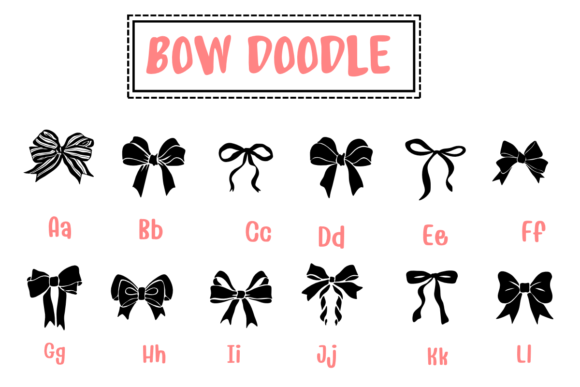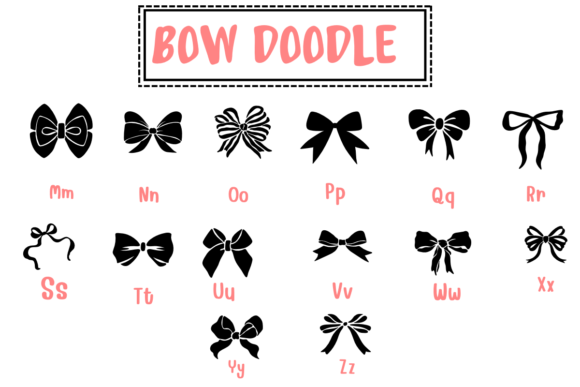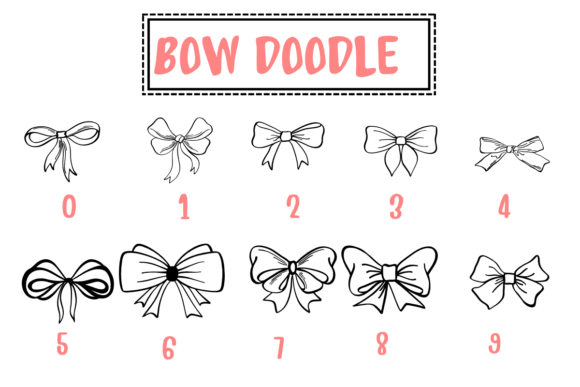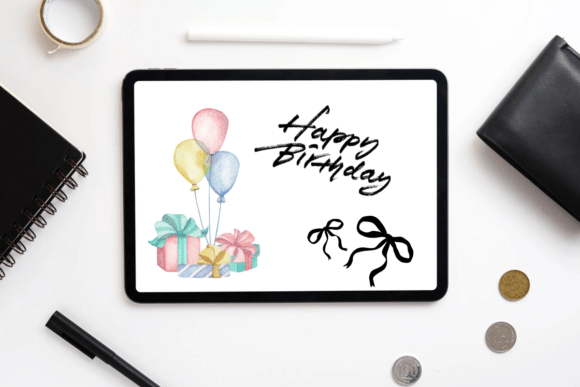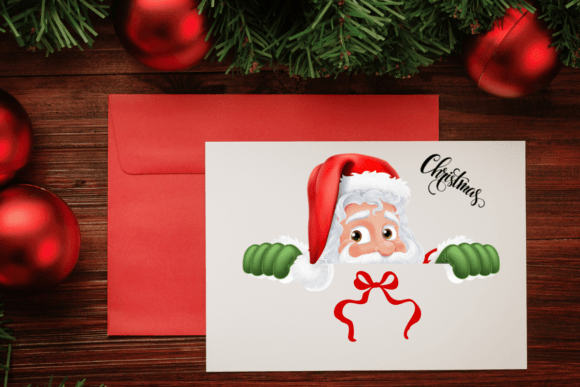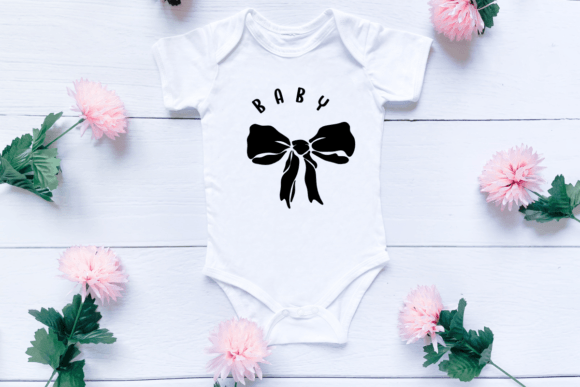
The Sweet Charm of Bow Doodle Font: A Designer’s Delight
I still remember the time I was working on a project for a client’s baby shower invitation. I wanted to add a touch of whimsy and charm to the design, but I just couldn’t find the right font. That was until I stumbled upon the Bow Doodle font. With its playful dingbat designs featuring cute bows, it was the perfect addition to bring a smile to the invitation. In this article, I’ll share my experience with the Bow Doodle font, its features, and how to make the most of it in your designs.
An Honest Review of Bow Doodle Font
• ✨ The variety of bow designs: Each character in the font displays a different bow design, making it perfect for adding a touch of charm to your projects.
• 🎉 Versatile: The Bow Doodle font can be used in a variety of projects, from cards and invitations to scrapbooking and more.
While the Bow Doodle font is a delightful addition to any design, there are a few things to keep in mind:
• 🤔 Limited character set: As a dingbat font, the Bow Doodle font only features bow designs, which may limit its use in projects that require a wide range of characters.
• ⚠️ May not be suitable for body text: The Bow Doodle font is best used as an accent or decorative font, rather than for body text.
The Story Behind Bow Doodle Font
The Bow Doodle font was designed by a talented type designer who wanted to create a font that would bring a touch of whimsy and charm to designs. Inspired by the art of gift wrapping and the joy of giving, the designer created a font that features a variety of bow designs. The result is a font that is both playful and elegant, perfect for adding a personal touch to your projects.
What type of projects can I use the Bow Doodle font for? The Bow Doodle font is perfect for a variety of projects, including cards, invitations, scrapbooking, and more.